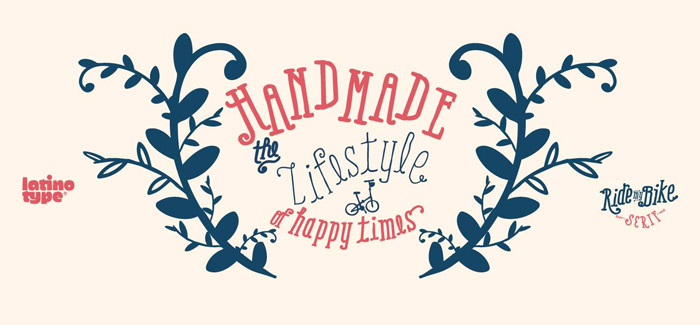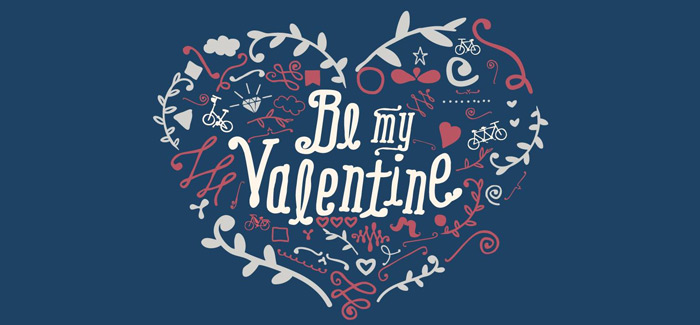
Ride My Bike Serif font
Ride My Bike Serif font is the new serif version of the popular hand-made Ride My Bike family designed by Coto Mendoza / Latinotype back in 2012. In this new edition we meet same freedom, happiness and joy that we use to see in almost every font she did thru the years – In a Jar font, Four Seasons font, Love Story font.
Ride My Bike Serif font is developed in 4 styles each of them supported by italics. Additionally you will find a separate font for ornaments, dingbats and catchwords that work perfectly with the rest of the family for more authentic look of personality and style. Another great option for personalization are the alternates, ligatures and swashes that will really turn you work with Ride My Bike Serif into a real pleasure. Furthermore – they will significantly improve your artwork by making it look special with a flavour of exclusivity. Ride My Bike Serif just like its predecessor has perfect performance in unfavorable print conditions or on low resolution devices – looking with excellent legibility even in small text sizes it’s surely wise choice for your artistic headlines, food packages, typographic posters as well as T-shirt designs and logos.